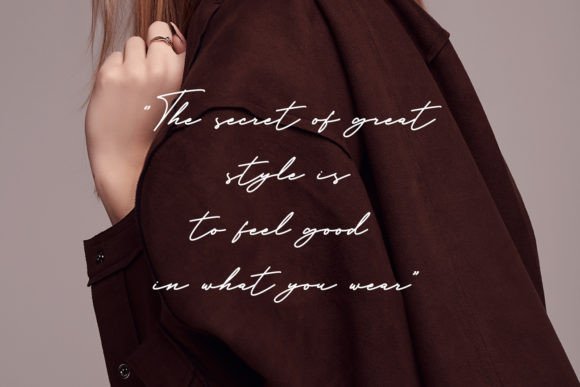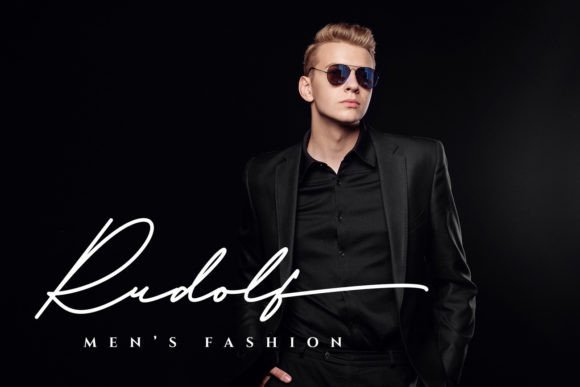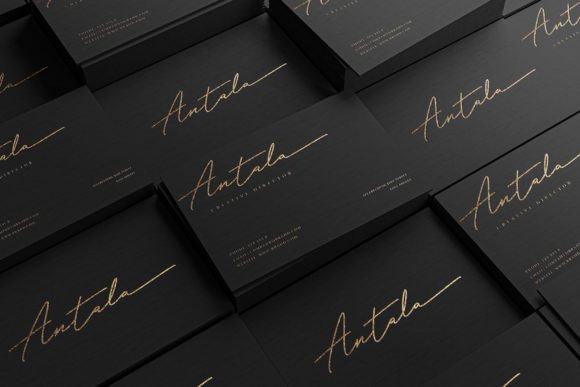
Introduction to Histerm Font
You’re in the zone, creativity is flowing, and your design project is taking shape. But then, you hit a roadblock – the perfect font to complete your vision seems elusive. This is where the Histerm Font comes in, a game-changing design resource that will elevate your creative project to new heights.
Whether you’re working on a logo, album cover, or magazine, the Histerm Font is a versatile and high-quality addition to your design arsenal. Its clean lines and transparent background make it perfect for watermarks, quotes, and other design elements. With a free download available, you can incorporate this font into your next creative project with ease.
Key Features of Histerm Font
- High-quality design resource ideal for creative projects, offering a unique and stylish aesthetic.
- Unique characteristics include a modern and minimalist style, making it perfect for contemporary design projects.
Honest Review: Histerm Font
I recently had the chance to work with the Histerm Font in a creative project and I must say it’s been a game-changer. The high quality of this design resource is truly impressive, making it a great addition to any design arsenal.
- ✨ Transparent background: This feature has been a lifesaver for me, allowing me to easily integrate the font into any design without worrying about background conflicts.
- ✨ High quality: The font’s high quality has impressed me, and it’s been a great choice for my creative projects.
- ⚠️ Limited customization options: While the font is high quality, I found that the customization options were limited, which can be a drawback for designers who like to get creative with their typography.
- ⚠️ Not ideal for complex designs: I found that the font can be a bit overwhelmed by complex designs, so it’s best used for simpler projects.
Overall, I’m impressed with the Histerm Font and would definitely recommend it as a design resource. However, keep in mind its limitations and use it accordingly to get the most out of it.
Histerm Font: A High-Quality Design Resource
Histerm Font is ideal for use in a variety of creative projects, including brochures, flyers, posters, and business cards. Its transparent background and high-quality design make it a versatile design resource for both personal and professional projects.
Tips for Getting the Most Out of Histerm Font
For the best results, use Histerm Font in conjunction with a high-quality image or background. You can also experiment with different font sizes and styles to create a unique and eye-catching design. As a free download, Histerm Font is a valuable resource for designers of all skill levels.
Alternatives to Histerm Font
Montserrat is a popular sans-serif font designed by Julieta Ulanovsky. It’s ideal for creative projects that require a clean and modern design. Montserrat is available for free download and comes with a high-quality, transparent background.
When to use: Montserrat is perfect for designing websites, logos, and marketing materials. It’s a great alternative to Histerm Font for designers who want a more contemporary look.
Comparison: While Histerm Font has a more distressed look, Montserrat is sleek and modern. Montserrat is a better choice for designers who want a clean and minimalist design resource.